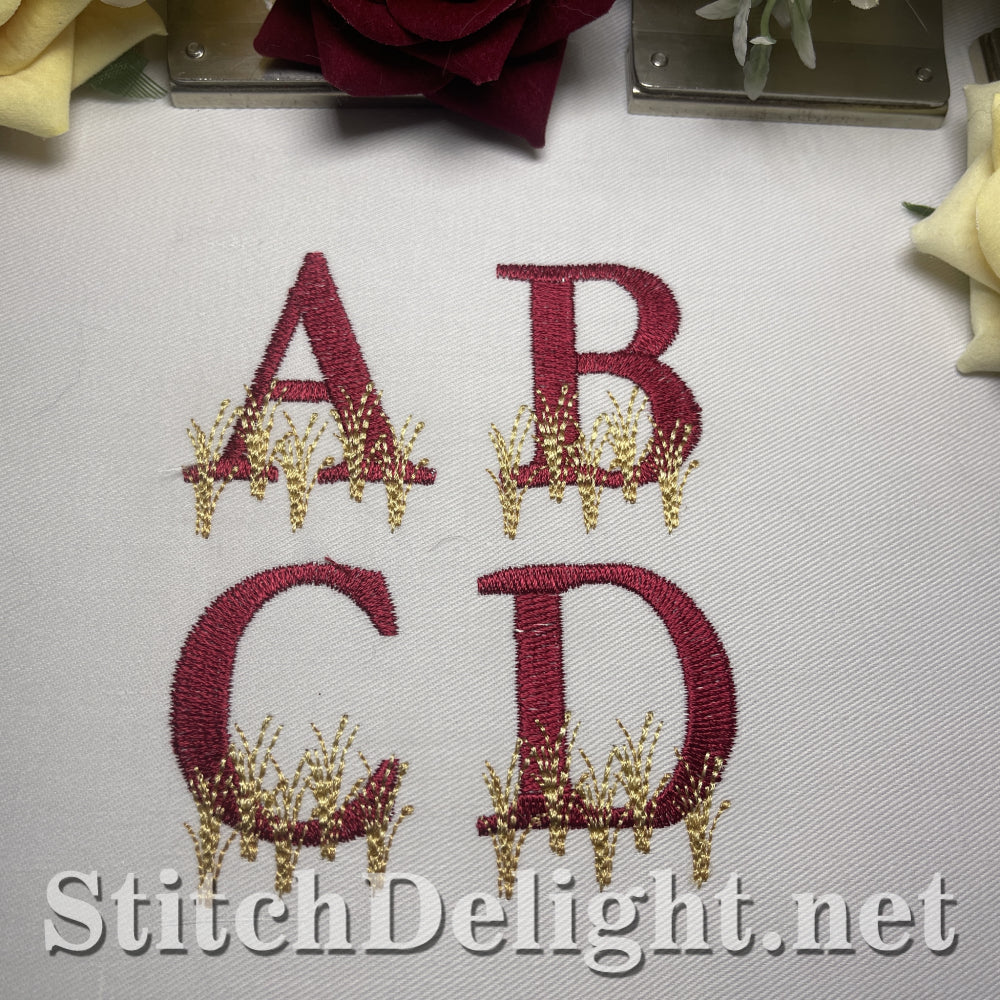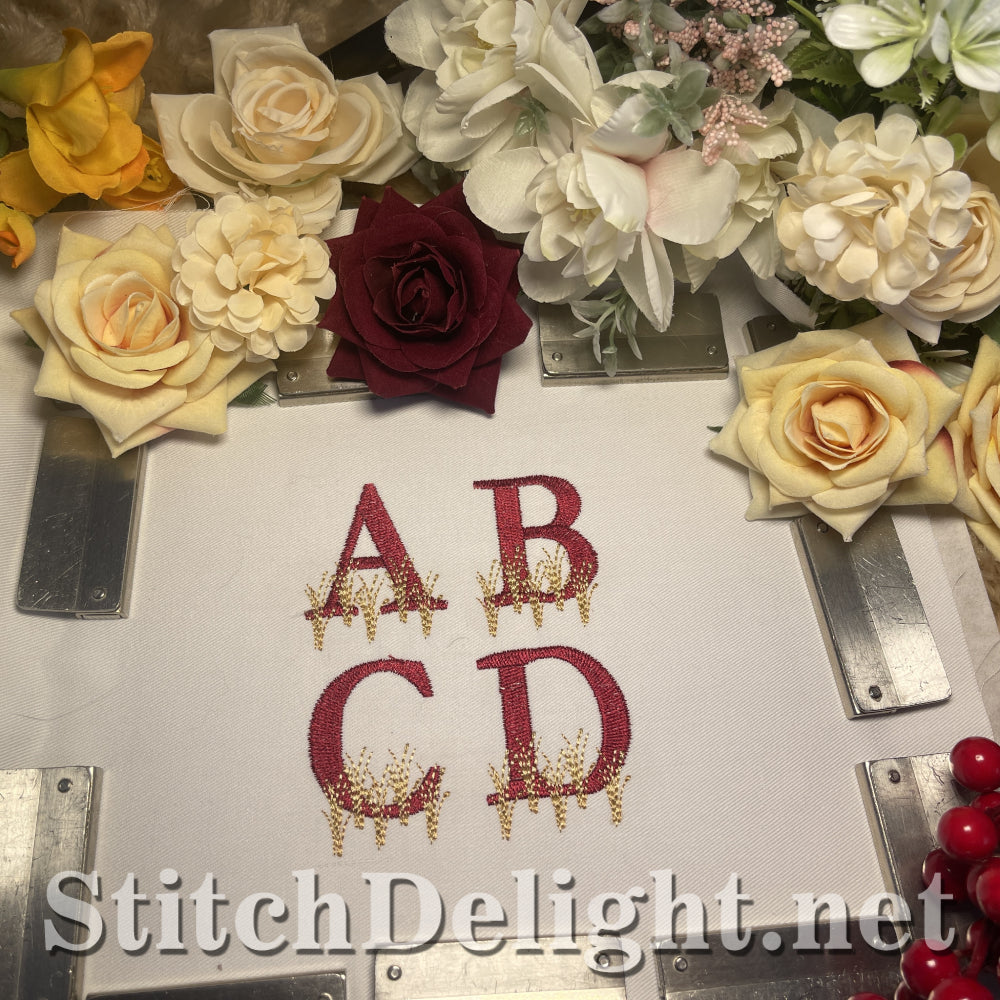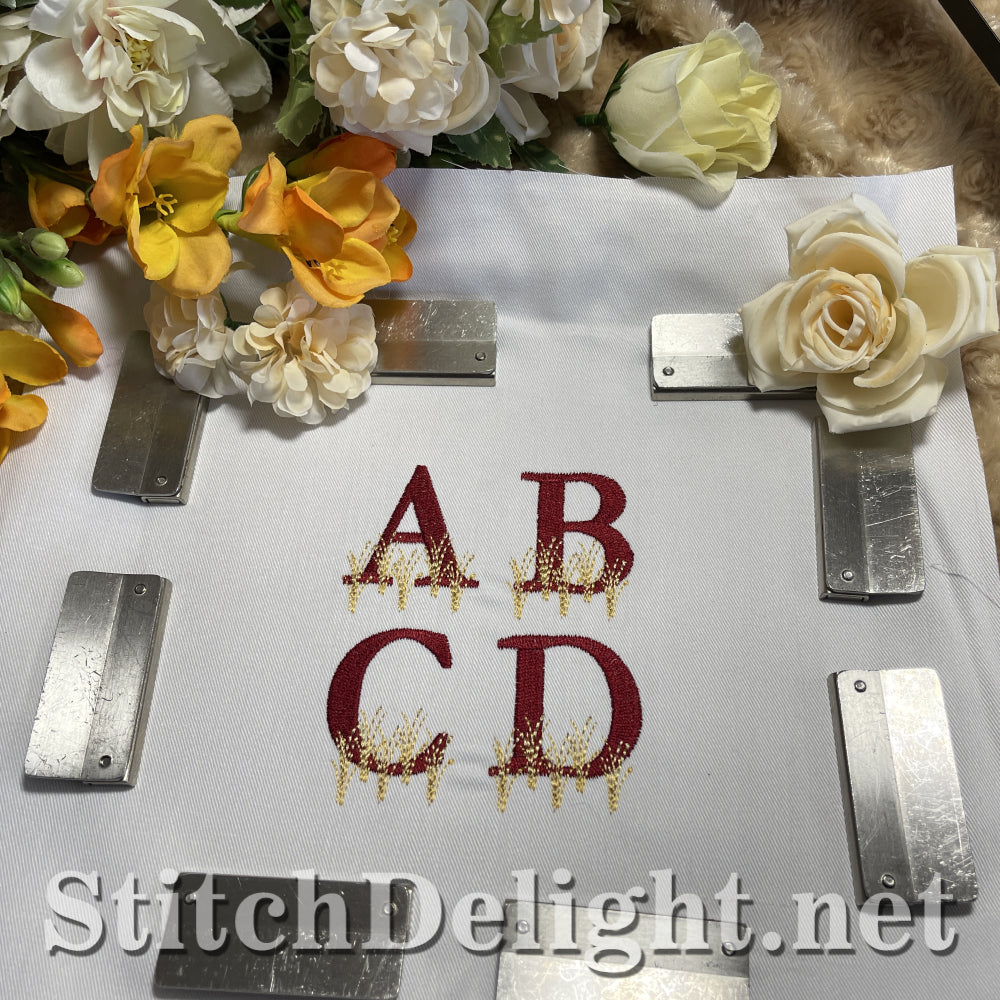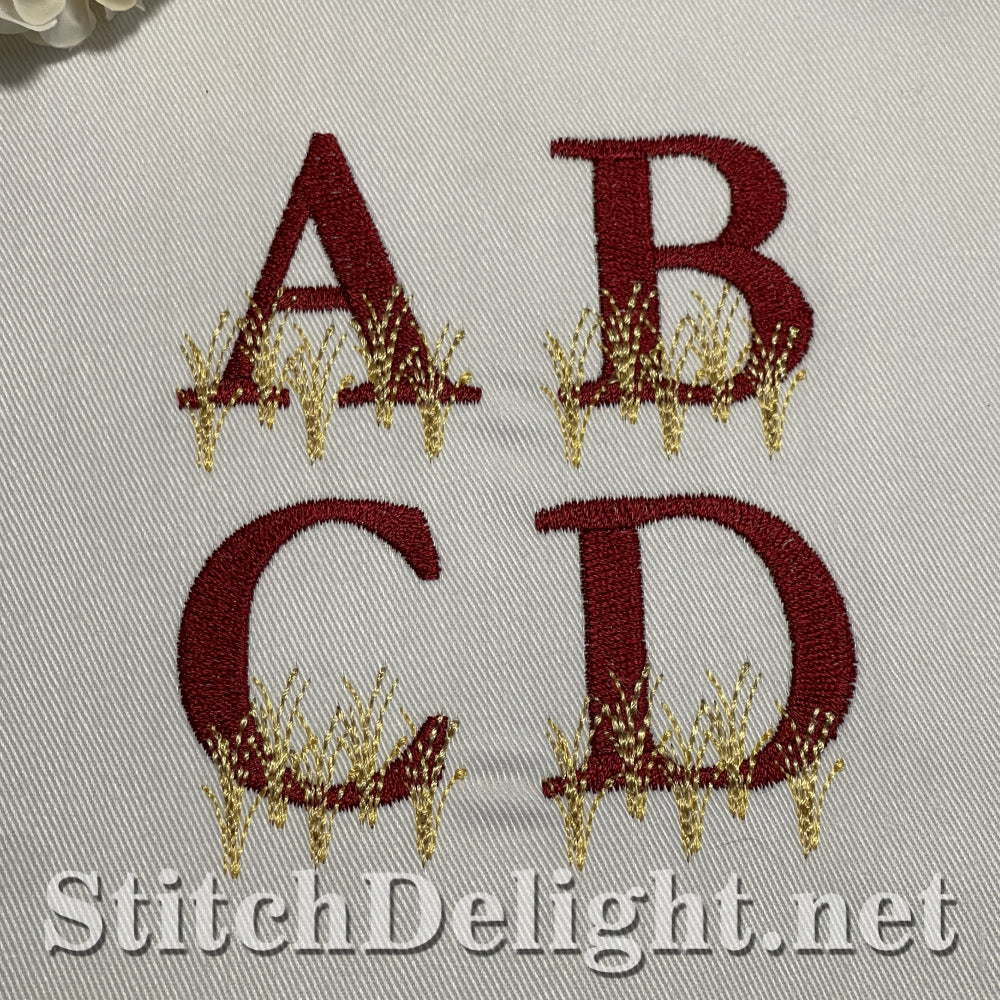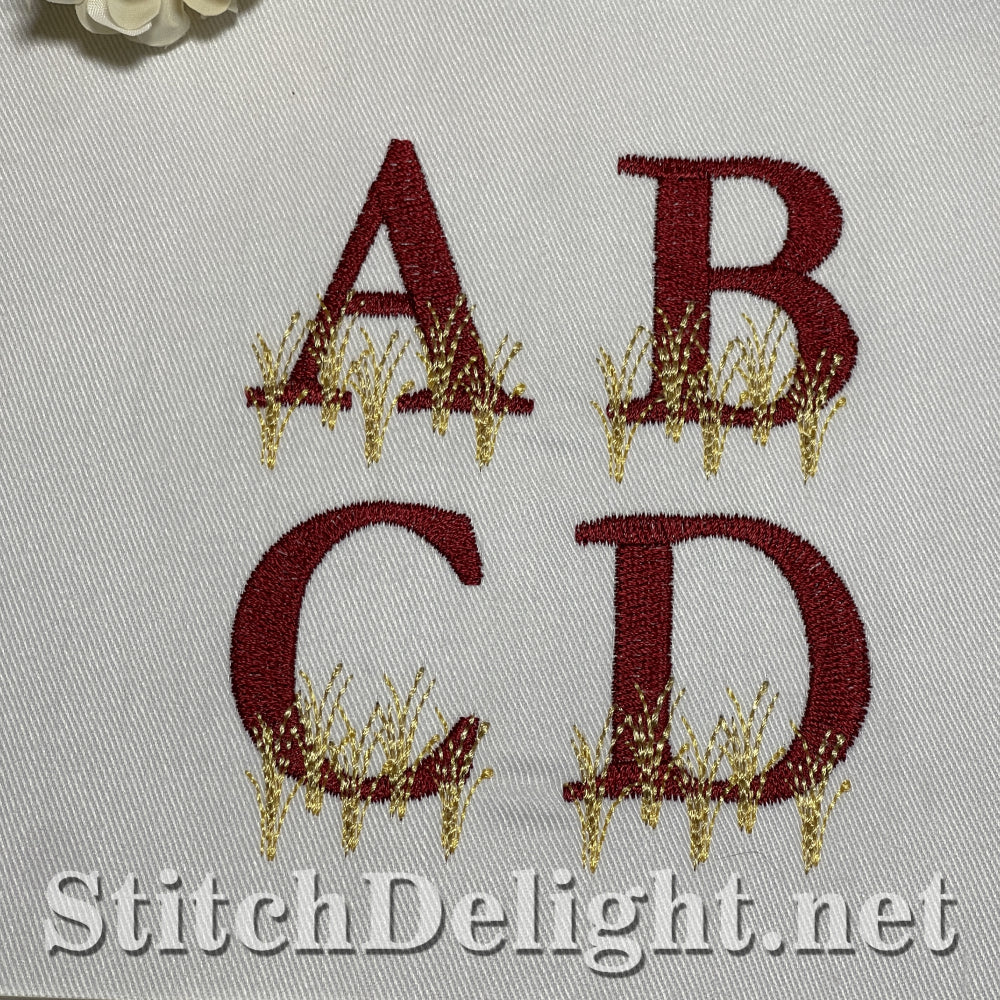
SDS3322 Crops Font
Farm Fresh 100% Organic: Celebrating the dedication and effort of hardworking farmers worldwide, this design symbolizes growth and the achievement of a bountiful harvest. With the collectors font, the combine harvester is shown in action, gathering the crops in this matching font ready to be processed and delivered to your table. Add this charming design to tote bags or cooler bags for any farming enthusiast
average letter height 2 inch with the lowercase letters being 1.37 inch in height average